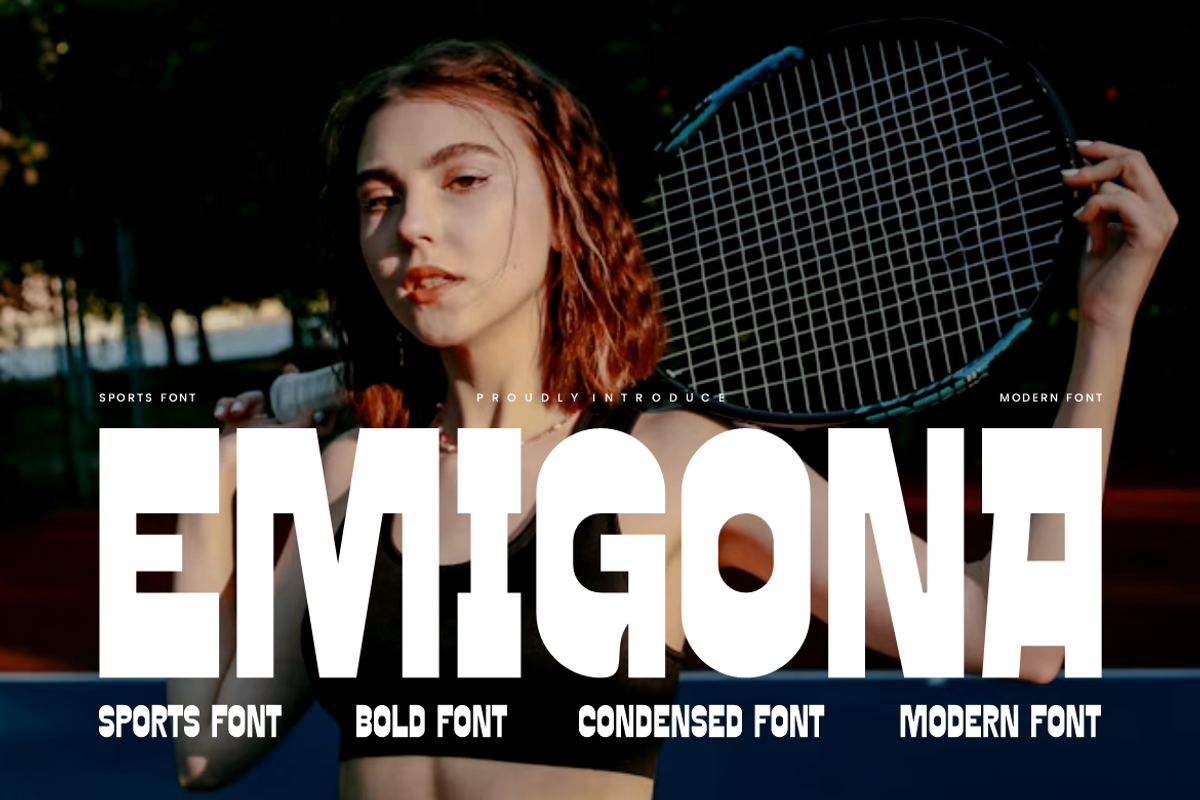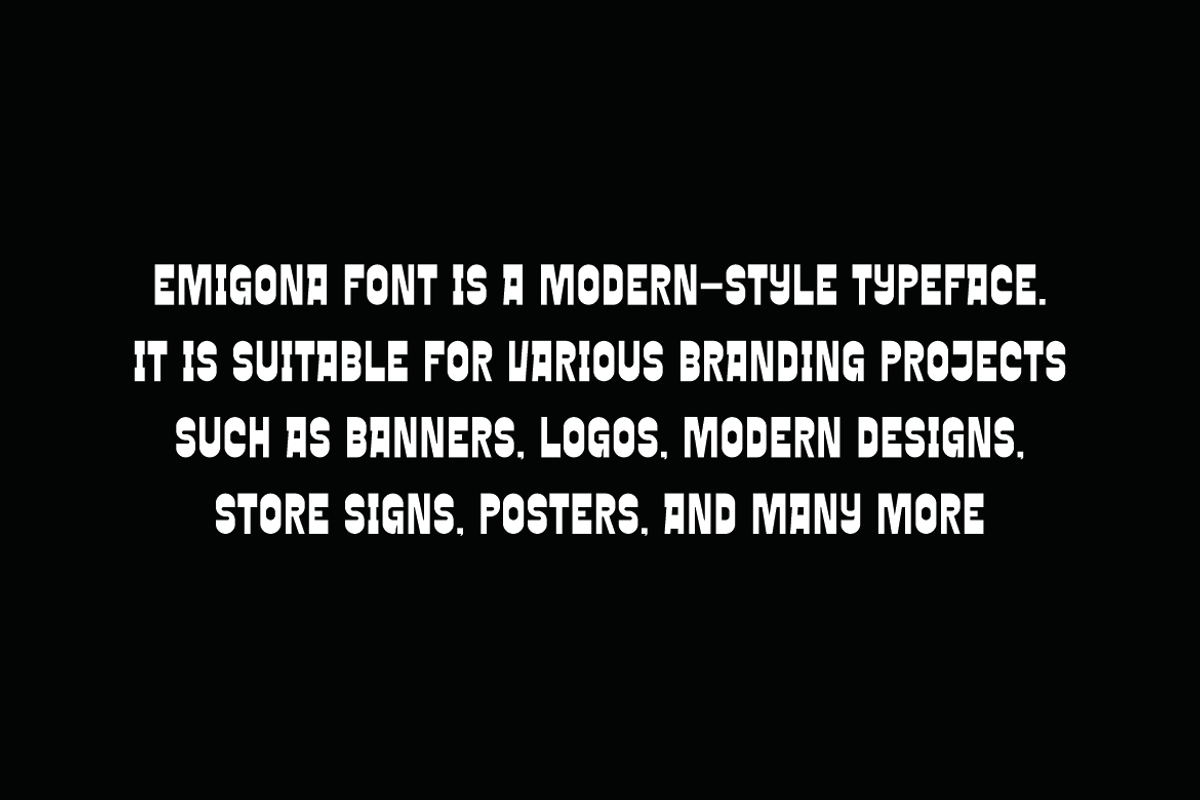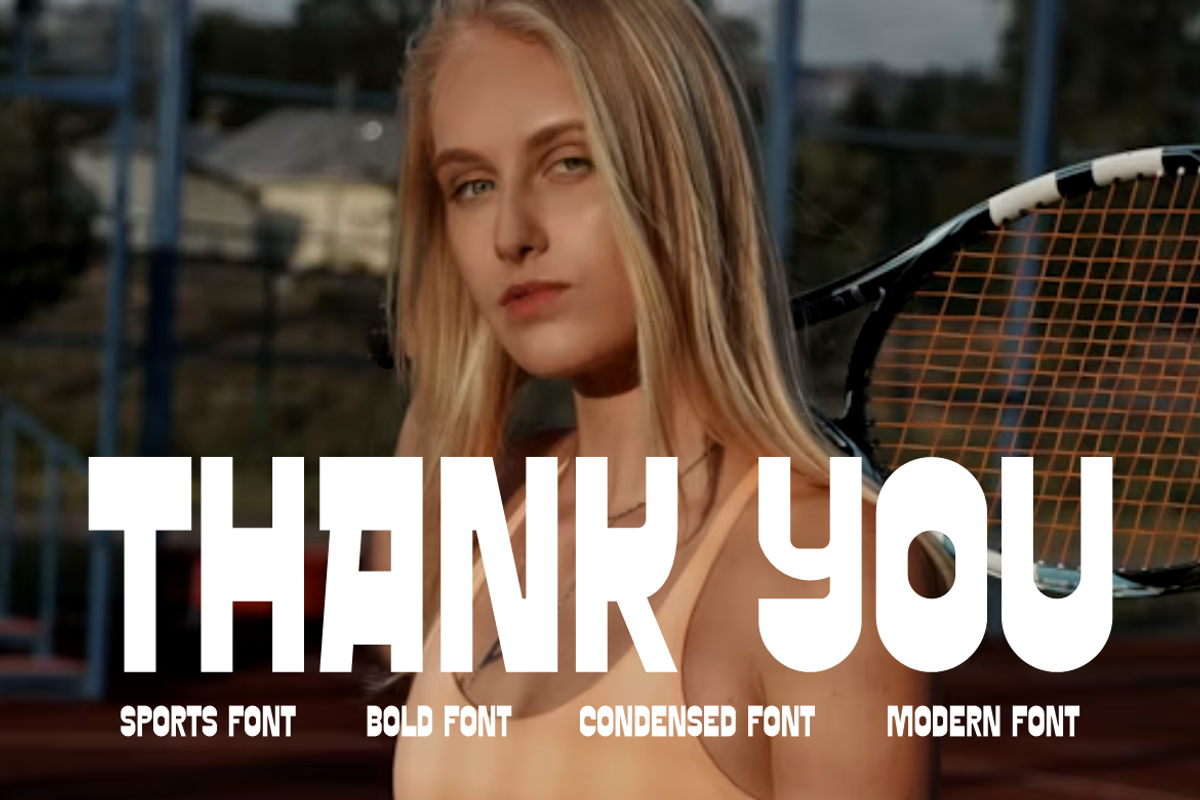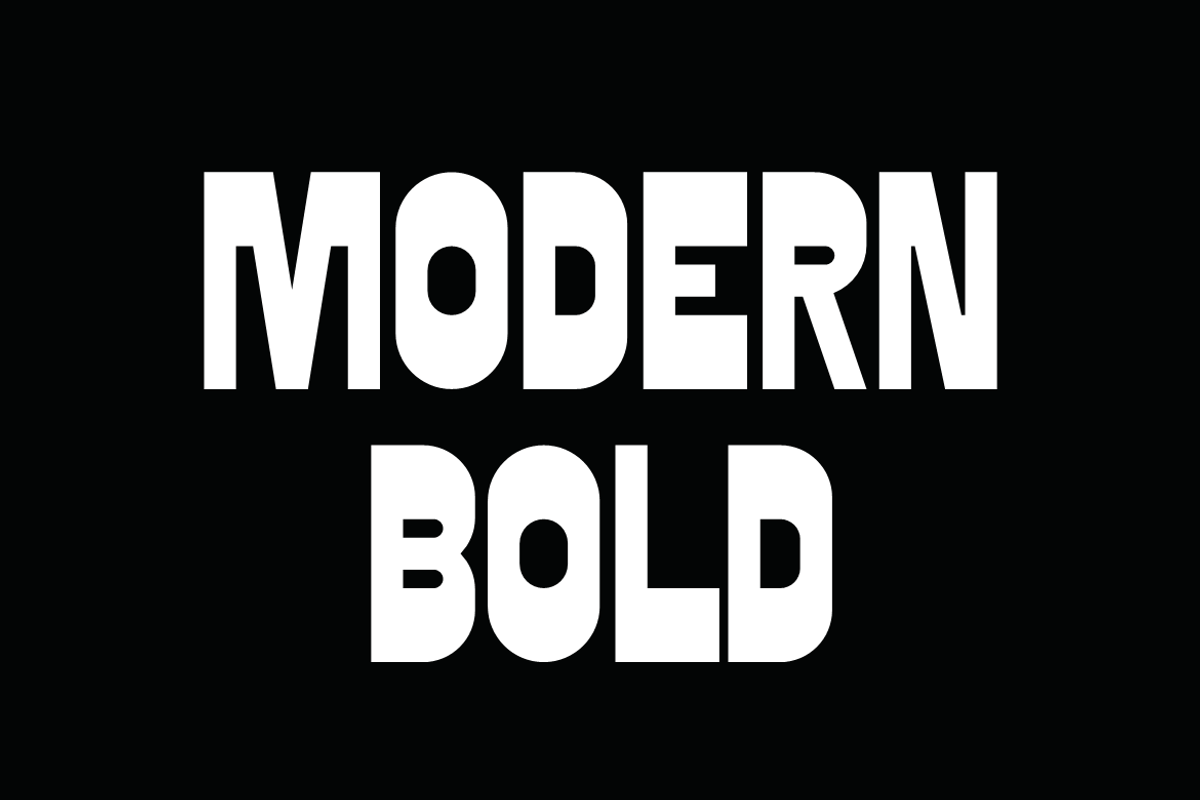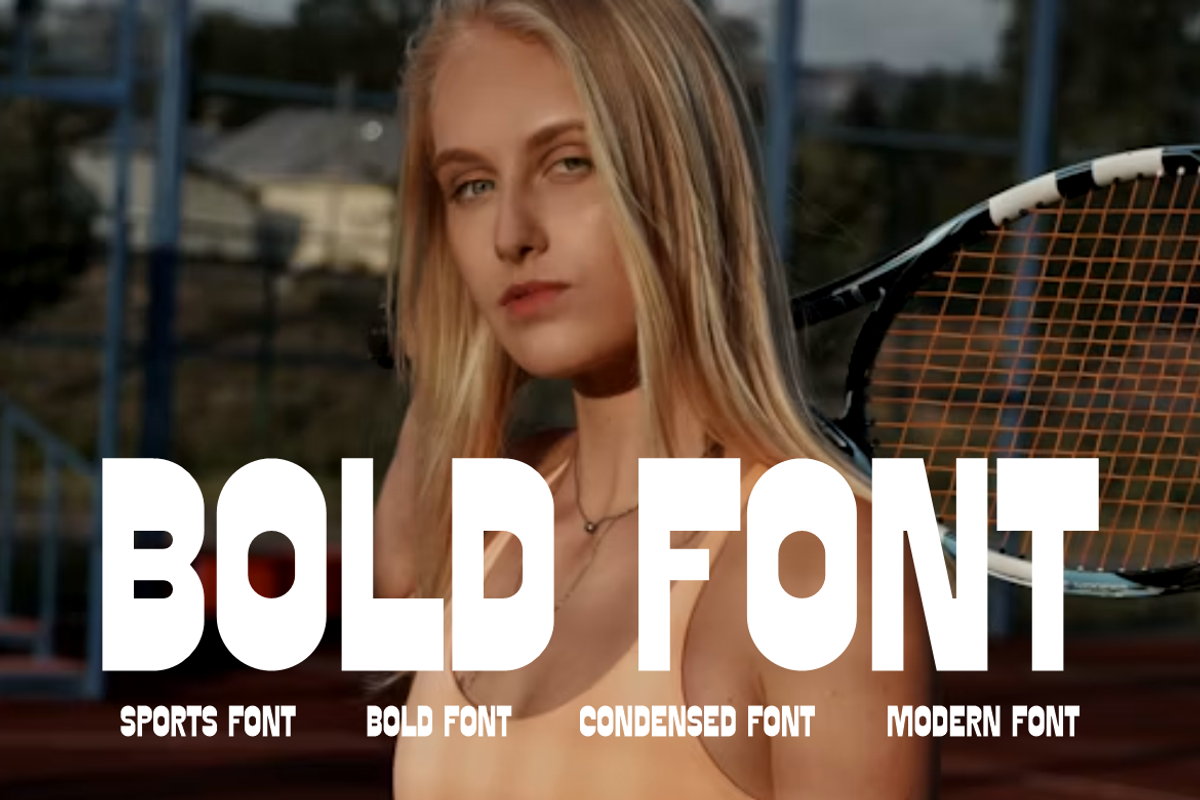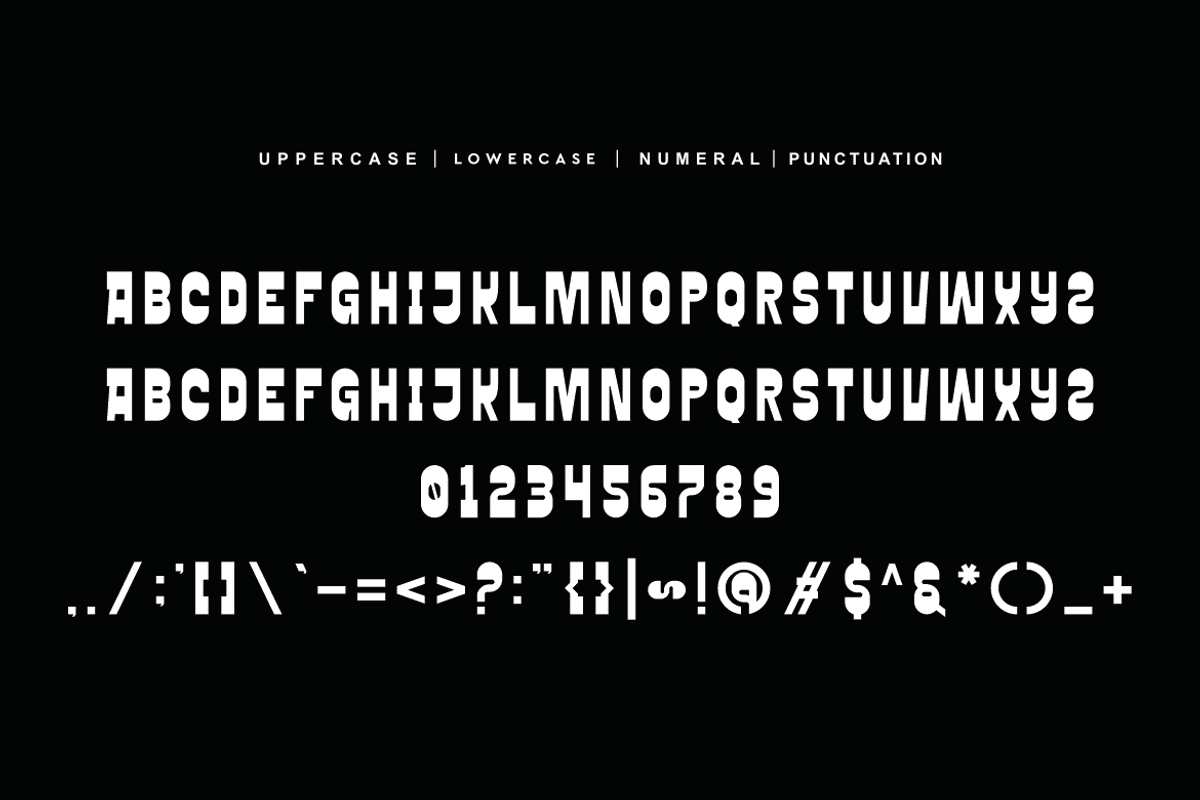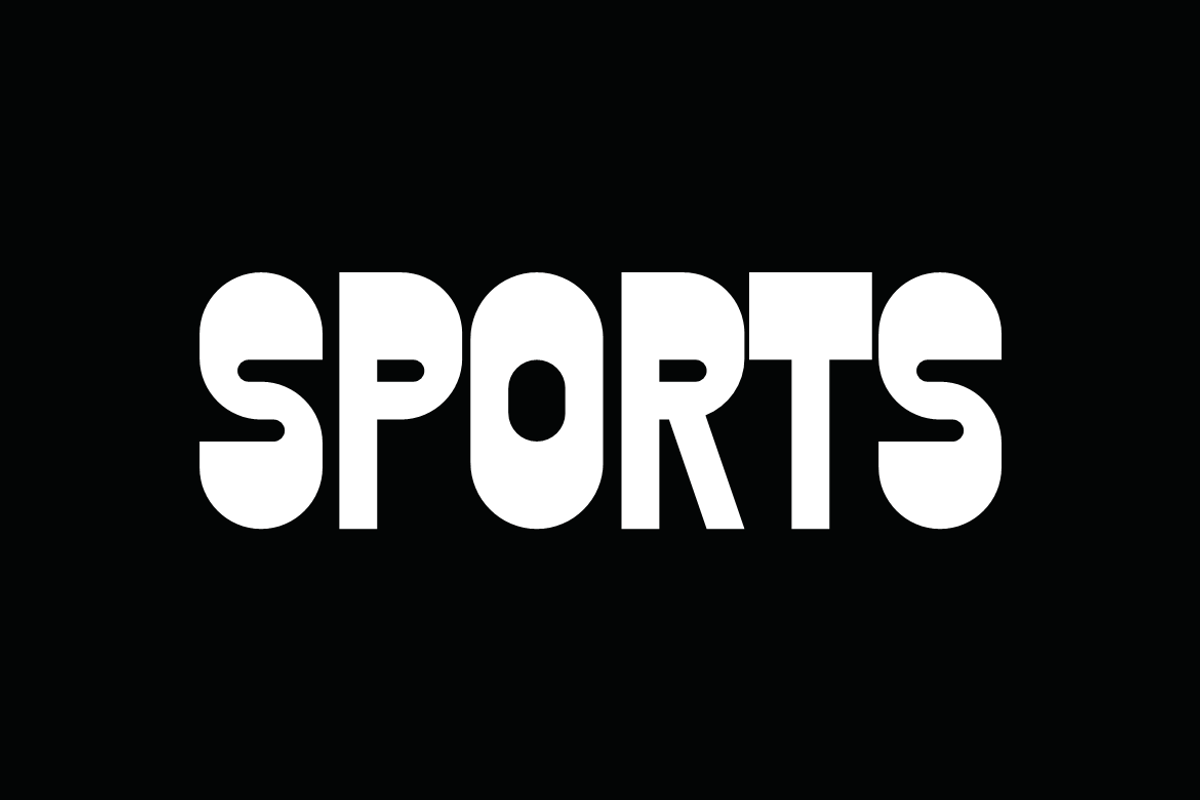
Emigona - Sports Bold Font
Emigona Font is a bold and authentic display typeface.
It’s perfect for various branding projects such as logos, sports designs,
and more. This font stands out beautifully in a wide range of contexts.